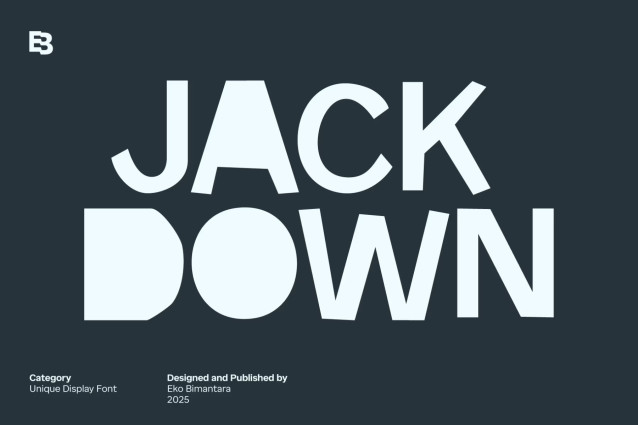
Jack Down Font
Jack Down Font is a chunky, comic, and cartoon display font. With its neat and joyful personality, this font will enhance any project you wish to create!